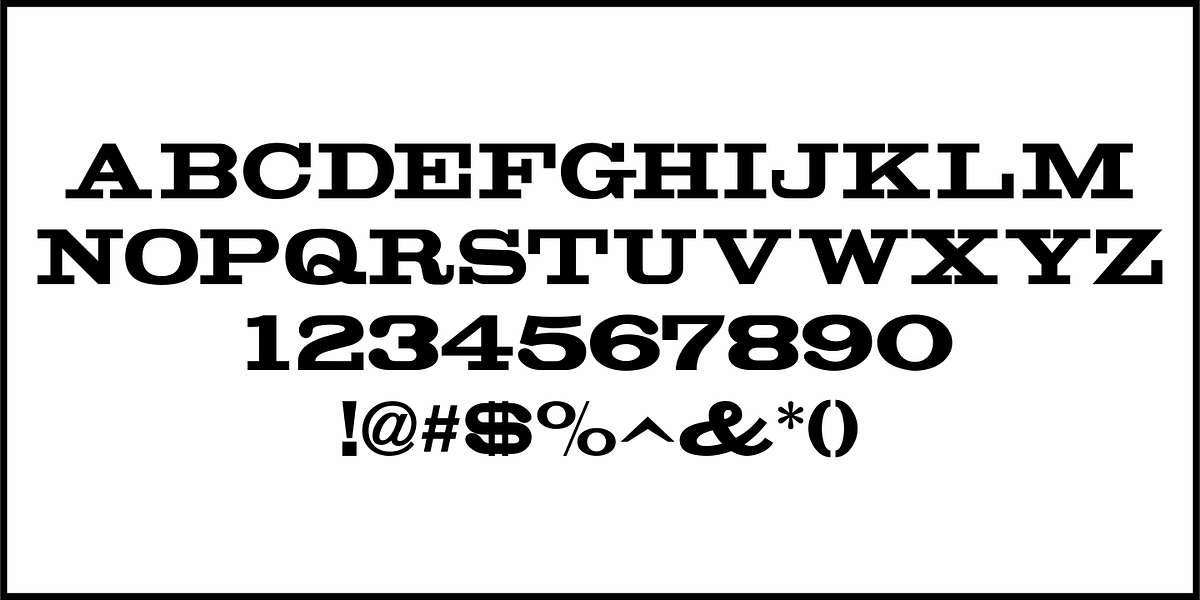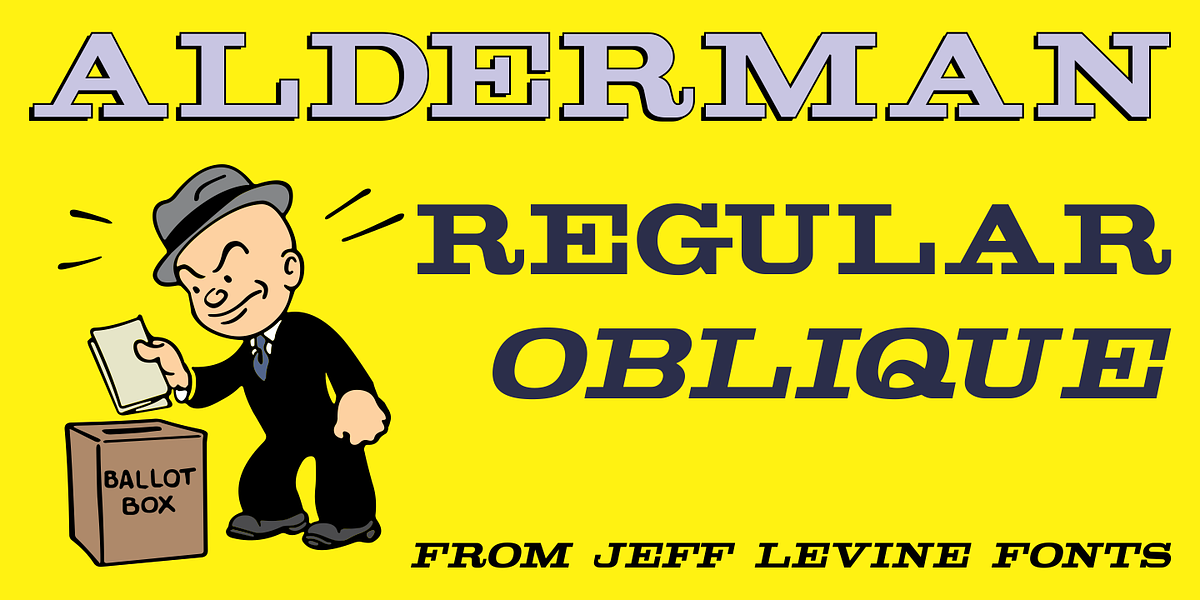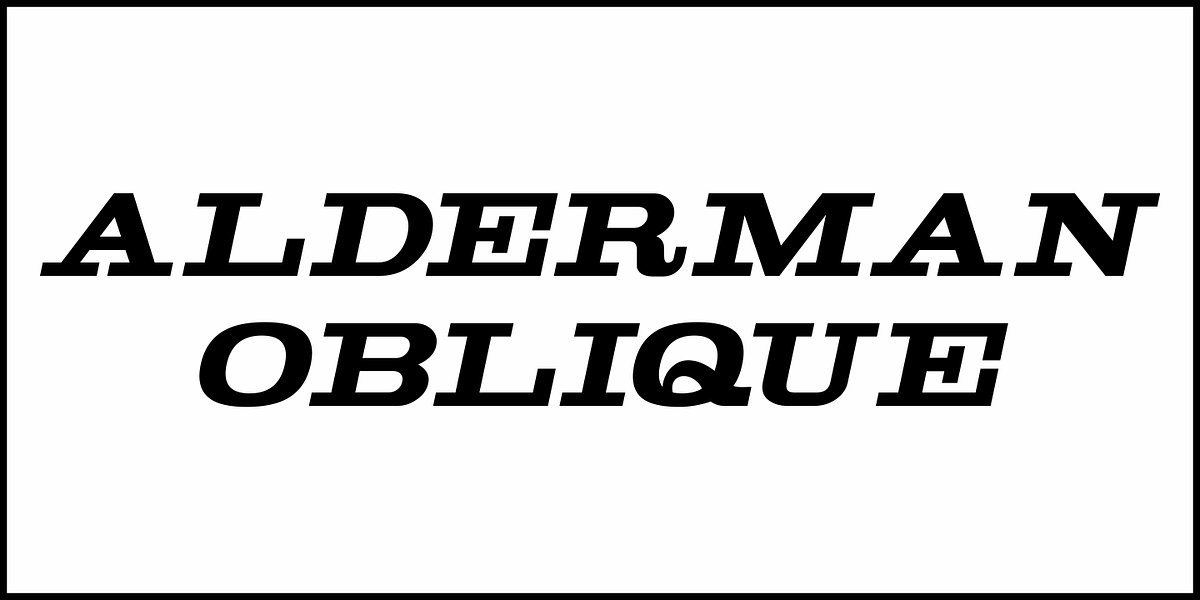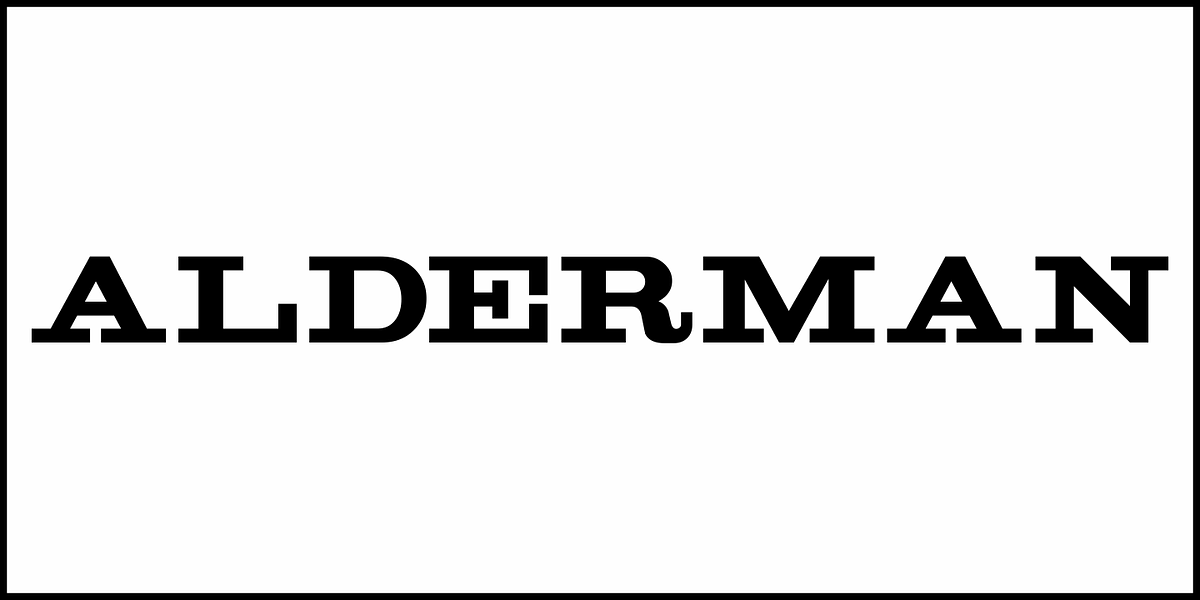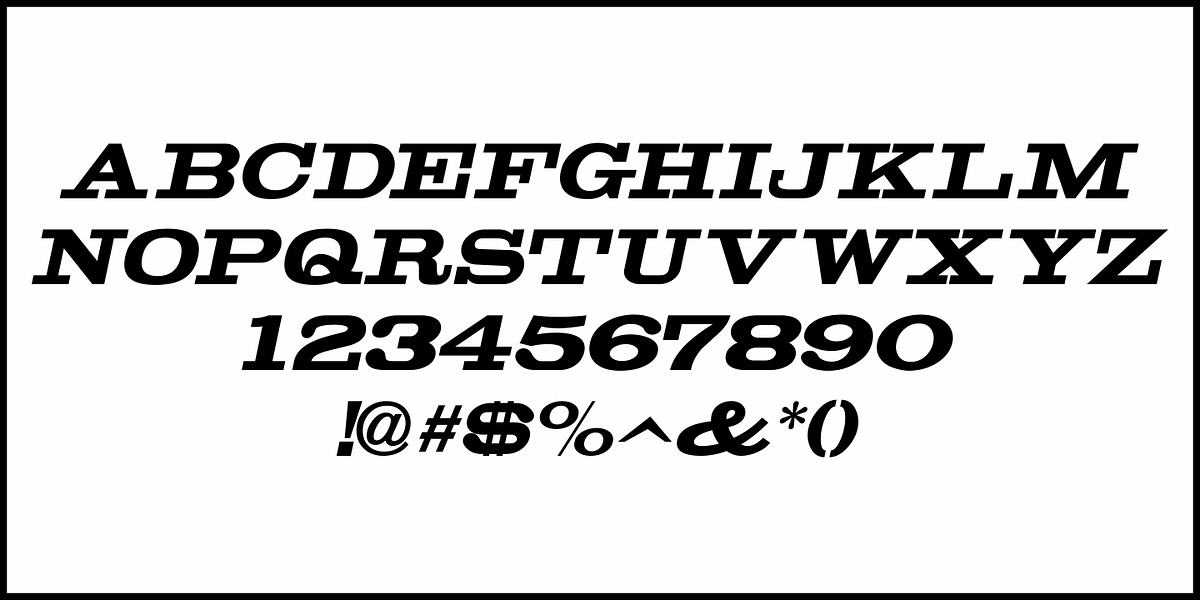
Alderman JNL
Alderman JNL is a wide slab serif typeface based on the classic wood type Antique Light Face Extended, and is available in both regular and oblique versions.